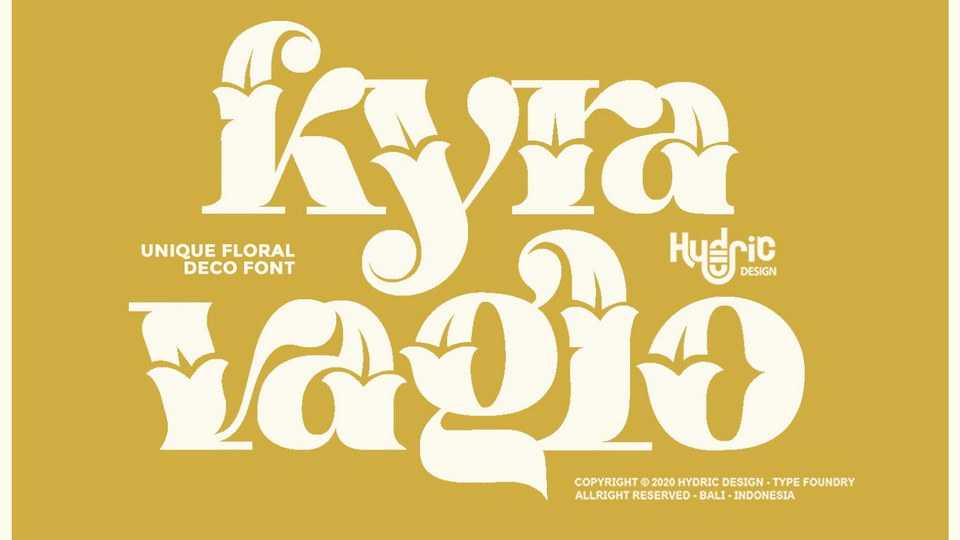
Download Kyra Vaglo font, a unique typeface with floral ornament, inspired from Asian Skunk Cabbage. This beautiful font also perfect for your project.
Designer: Hydric Design